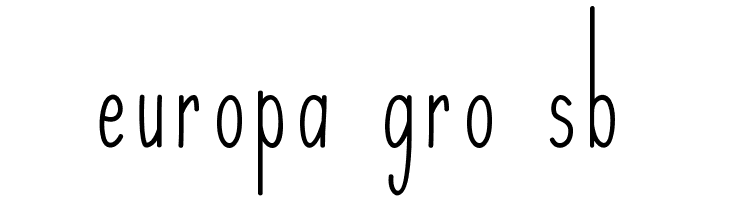
Insta Story Font
A playful, hand-drawn font with tall, narrow characters and a whimsical style.
A modern, rounded sans-serif font with a clean and approachable design.
Sen Font
FHACondensedFrenchNC Font
A bold, condensed serif font with strong, narrow letterforms.
Vintage Party FreeVersion Font
A bold, flowing script font with a vintage flair and elegant curves.
Typoster Italic Font